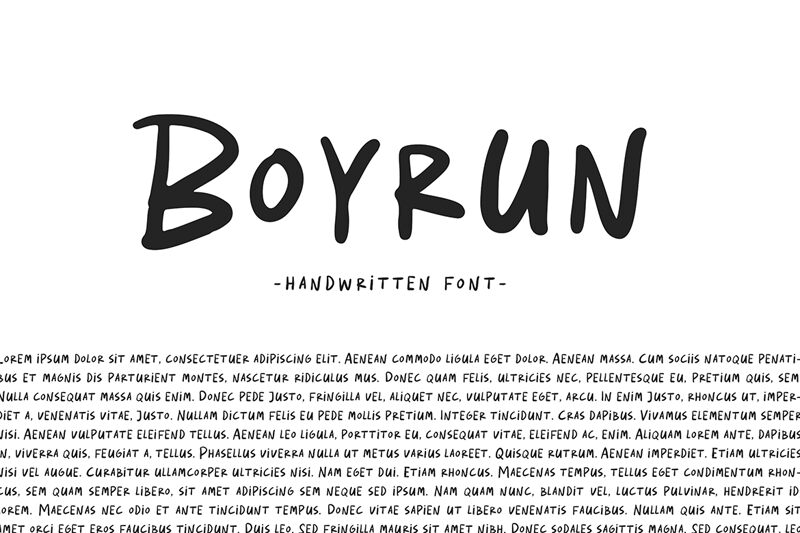
Boyrun is a charming handwritten font designed by Wahyu Andi Prasetiyo. Its playful curves and unique strokes give your text an authentic, personal touch. This semi-bold typeface is perfect for a variety of projects, from greeting cards to social media graphics, branding materials to book covers. Use it to add personality and warmth to your designs or create a whimsical atmosphere in your next project. Boyrun's versatility and legibility make it an excellent choice for any creative endeavor that needs a handwritten touch. Add this delightful font to your collection today!
Boyrun